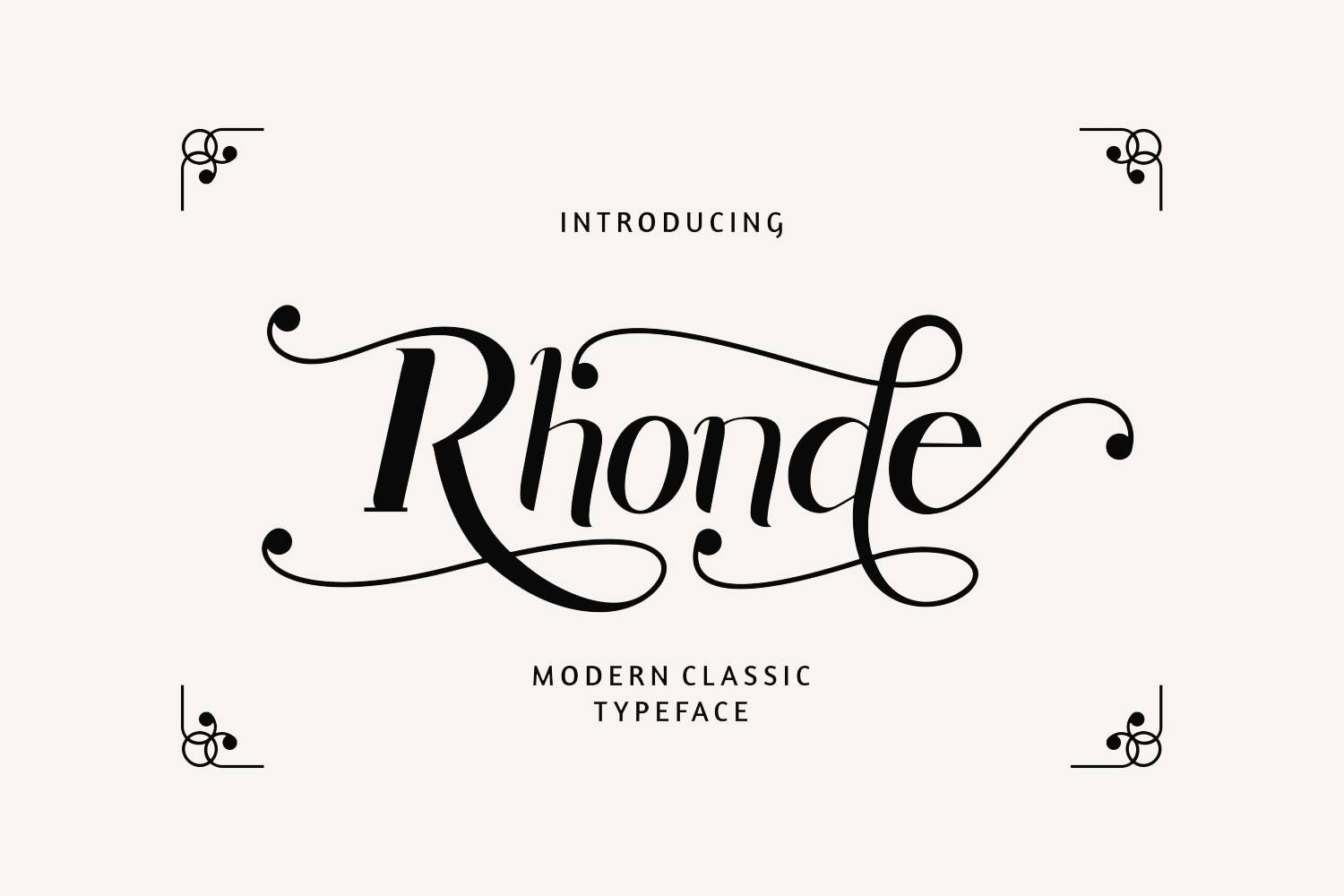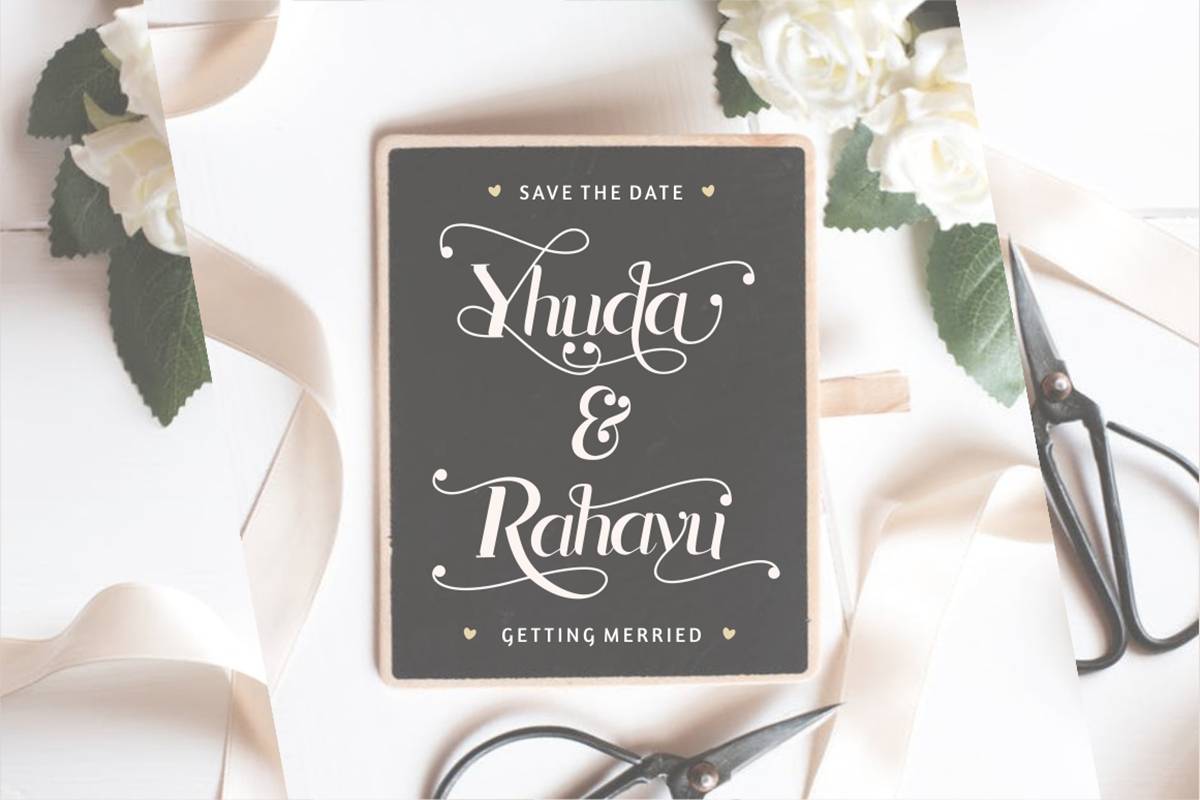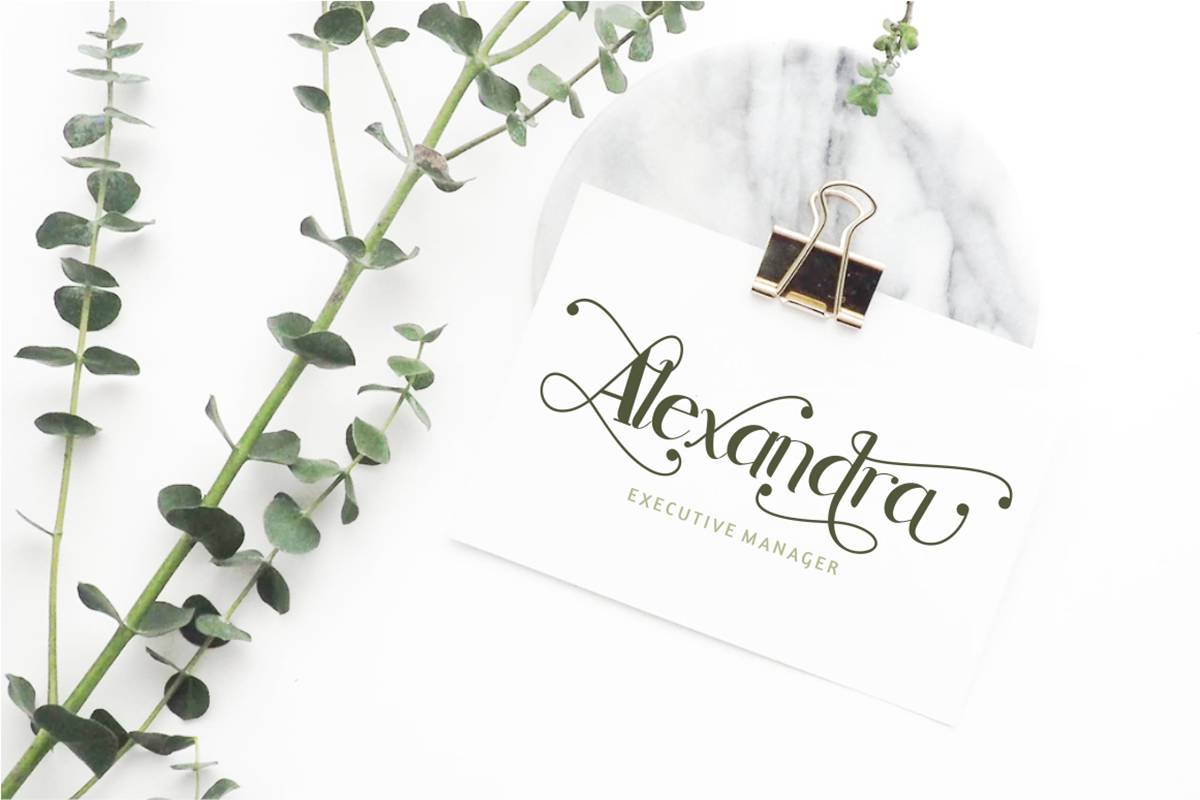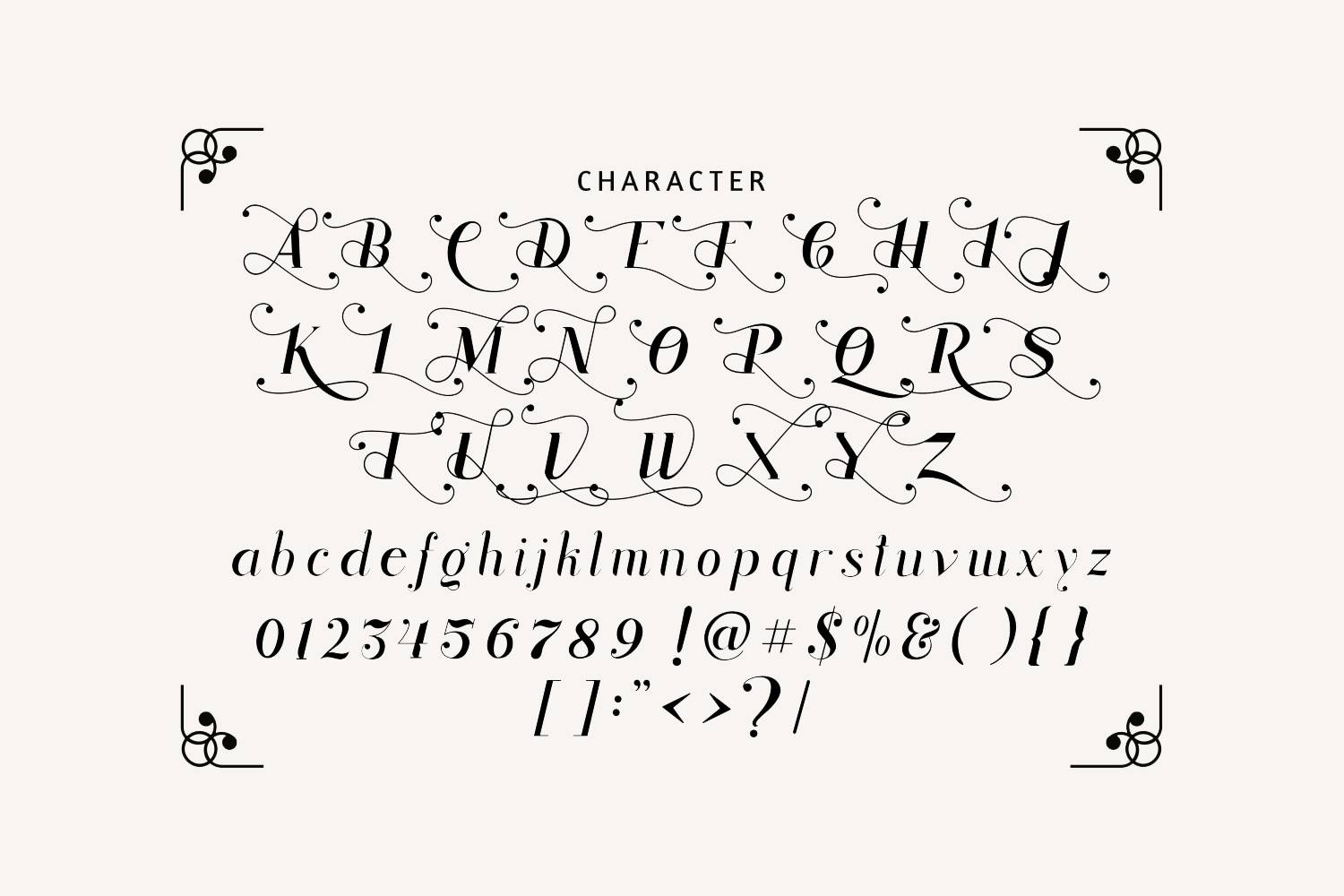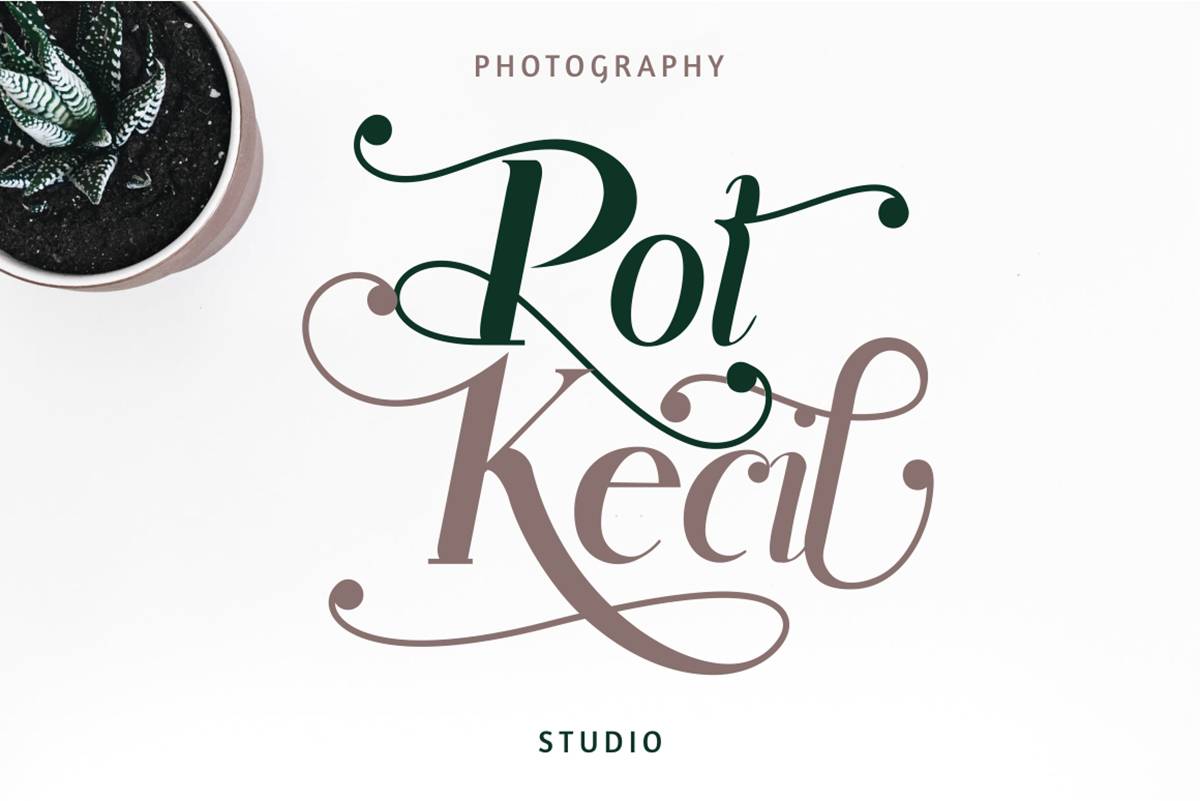
Rhonde is an elegant script font characterized by its delicate, flowing lines and ornate swashes, creating a highly decorative and sophisticated appearance. Its thin, graceful strokes and intricate flourishes make it ideal for luxury branding, wedding invitations, and formal headlines where a refined and artistic touch is desired. This font shines in settings that call for a vintage yet stylish look, adding a sense of exclusivity and charm.
Rhonde Font
About Rhonde Font